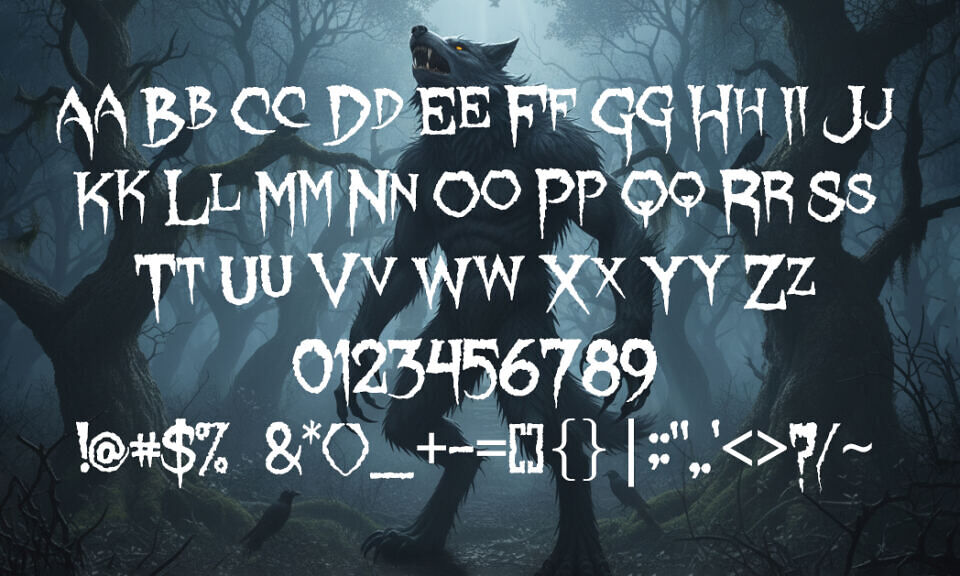
Lycanthrope Font
Unleash the beast within your designs with Lycanthrope Font, a chilling, hand-drawn typeface inspired by werewolves and dark forests. Created by Sinister Fonts, this horror-style font features jagged, claw-like edges and uneven strokes that evoke primal fear and untamed energy.
Perfect for Halloween posters, horror movie titles, gothic logos, and spooky invitations, Lycanthrope adds a raw, supernatural edge to any project. Its wild, textured look captures the essence of moonlit terror, making it a must-have for designers seeking bold, eerie typography.